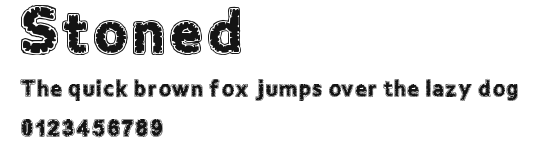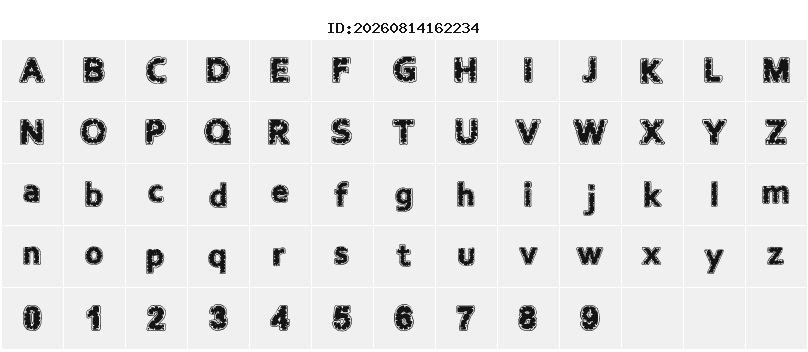
• Font Name: Stoned
• Full Font Name: Stoned
About Stoned.ttf
Stoned.ttf is a modern, elegant sans-serif font designed for ultimate readability and visual harmony. Perfect for branding, headlines, web design, and print materials.